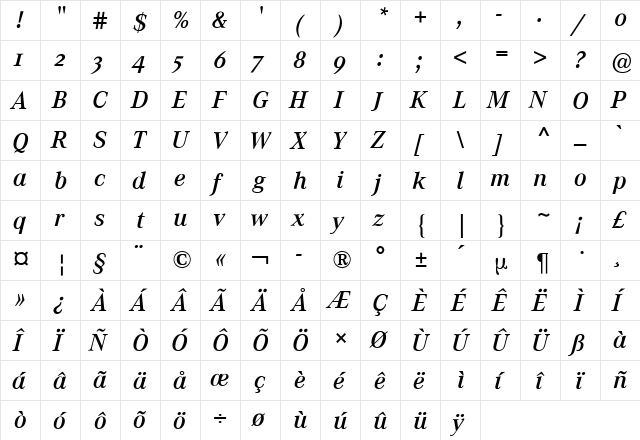
Corporate A Expert BQ Italic Font Preview
Corporate A Expert BQ Italic
Corporate A Expert BQ Italic Font Details
Design Context for Corporate A Expert BQ Typeface
Corporate A Expert BQ takes a measured approach to typography — its balanced proportions and neutral character make it a reliable workhorse for both digital and print work. The slanted form adds forward momentum and visual energy.